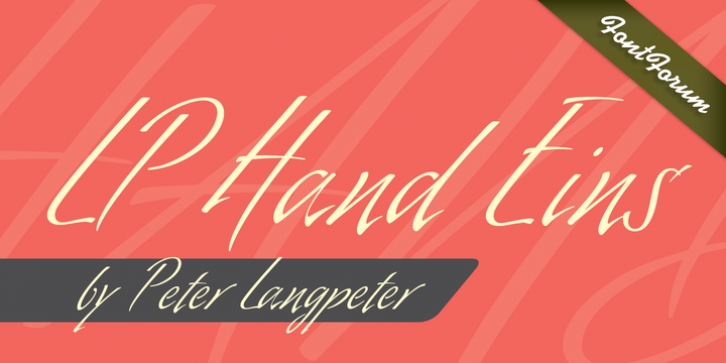
LP Hand Eins is a typeface designed by German type designer Peter Langpeter. LP has been running his own design studio since 1995, working as a typeface and logo designer, as a calligrapher, cartographer and illustrator. During this time LP created a large number of excellent new typeface designs. LP Hand Eins is well-suited for plenty of applications, e.g. personal correspondence, invitations, greeting cards etc.